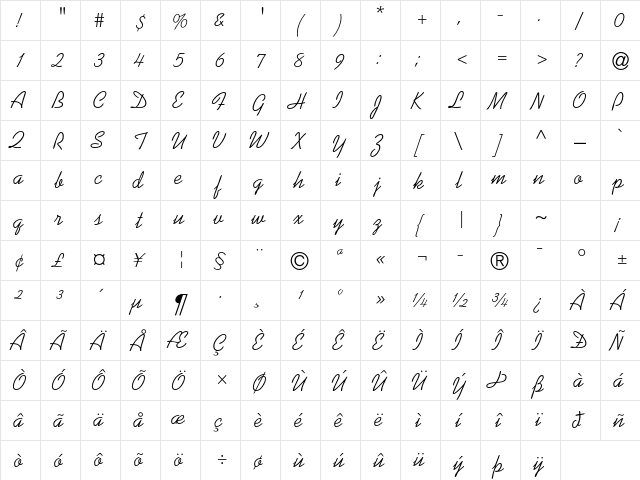
Kaufmann Std Roman
| Designer | Max R. Kaufmann |
Design Context for Kaufmann Std Typeface
Kaufmann Std is a composed and adaptable typeface that performs quietly and consistently across a wide range of design contexts.